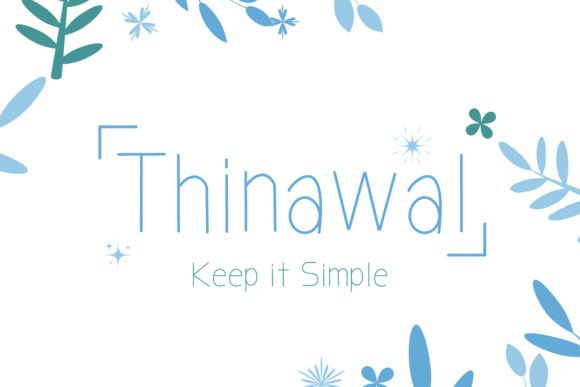
Welcome to the world of Thinawal, a thin and simple handwritten font family, created by the talented Piscine26. Prepare to be captivated by its charm and versatility, making it the perfect choice for adding a touch of whimsy and magic to your creative projects.
Thinawal's delicate strokes evoke a sense of playfulness and innocence, making it the ideal font for children's books, greeting cards, and invitations. Its thin and elegant characters bring a touch of grace and sophistication to any design, transforming your words into works of art.
Imagine the joy on your child's face as they read a storybook brought to life by Thinawal's whimsical characters. Each letter becomes a delightful dance, capturing their attention and sparking their imagination. Their bedtime stories will take on a new dimension, filled with wonder and delight.
With Thinawal, your greeting cards and invitations will be cherished keepsakes, treasured by friends and family alike. Its charming and personal touch will make every message unique and heartfelt, expressing your love and care in a way that words alone cannot convey.
Thinawal's versatility extends beyond the realm of children's books and stationery. Its understated elegance makes it a superb choice for logos, branding, and even fashion designs. Its ability to add a touch of whimsy and sophistication to any project is truly remarkable.
Thinawal is more than just a font; it's an invitation to let your creativity soar. Whether you're a seasoned designer or just starting your artistic journey, Thinawal will be your faithful companion, helping you create designs that captivate and enchant.
So, embrace the magic of Thinawal today and let your imagination run wild. Transform your creative projects into masterpieces that resonate with beauty and charm. Experience the joy of seeing your words come alive, carrying your messages with grace and elegance. Thinawal awaits, ready to unlock your fullest creative potential.